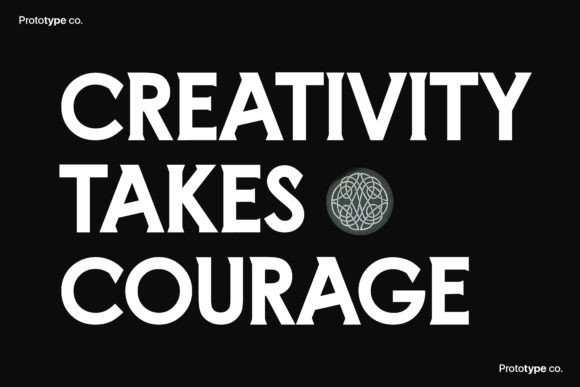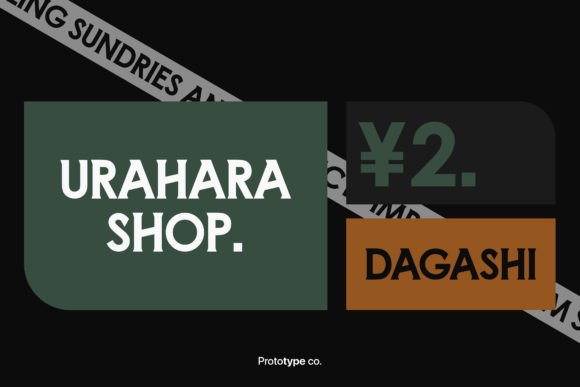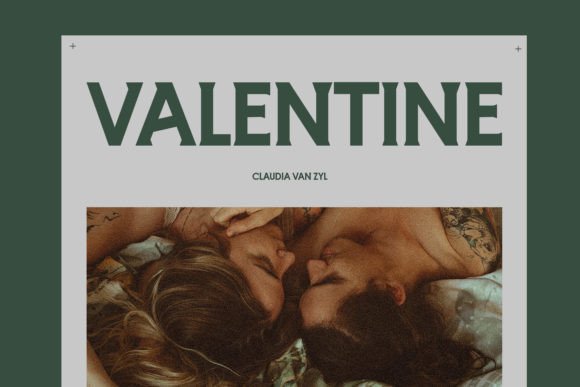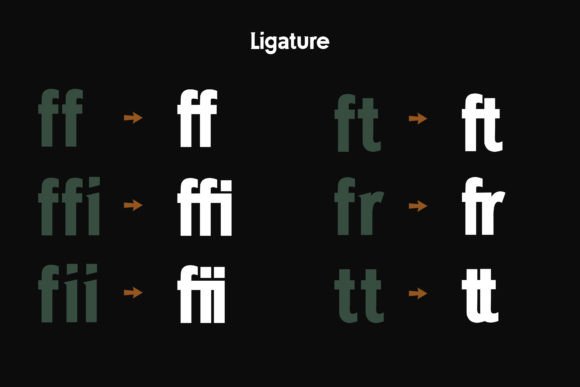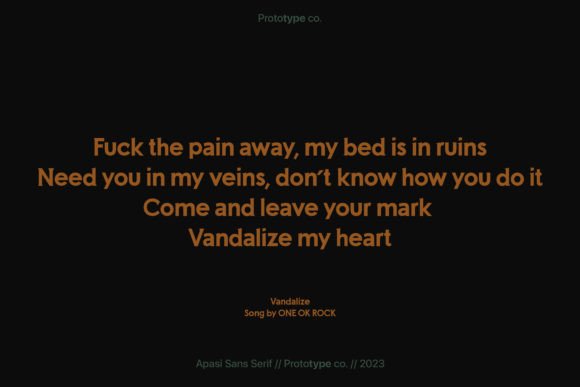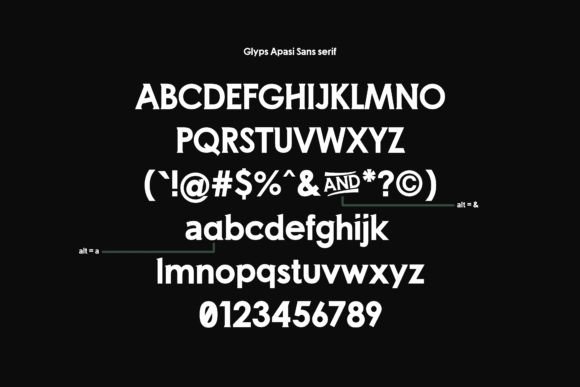
Introducing Apasi Font: Elevate Your Designs with Modern Elegance
In the world of typography, a font can make or break a design. For designers and crafters seeking to add a touch of sophistication to their projects, Apasi Font is an excellent choice. This modern and classy display typeface is designed to elevate your designs, making it perfect for headings, logos, branding, magazines, product packaging, and invitations.
The Characteristics of Apasi Font
Apasi Font boasts clean lines and smooth curves, giving any project an extra touch of class. Its sleek design makes it an ideal choice for designers who want to create a lasting impression. The font’s modern aesthetic is versatile, allowing it to be used in various design applications, from digital media to print materials.
Why Choose Apasi Font?
There are several reasons why Apasi Font stands out from the rest:
- Modern and Classy: Apasi Font exudes a sense of sophistication, making it perfect for designs that require a touch of elegance.
- Versatile: This font is suitable for a wide range of design applications, including headings, logos, branding, magazines, product packaging, and invitations.
- Clean Lines and Smooth Curves: The font’s sleek design ensures that your projects look polished and refined.
- Ease of Use: Apasi Font is easy to read and works well in various sizes, making it a practical choice for designers.
Design Applications for Apasi Font
Apasi Font is an excellent choice for various design applications, including:
- Headings and Titles: Use Apasi Font to create eye-catching headings and titles that grab attention.
- Logos and Branding: This font is perfect for creating professional logos and branding materials that exude elegance and sophistication.
- Magazines and Editorials: Apasi Font is an excellent choice for magazine and editorial designs, adding a touch of class to your publications.
- Product Packaging: Use Apasi Font to create eye-catching product packaging that stands out on store shelves.
- Invitations and Events: This font is perfect for creating elegant invitations and event materials that make a lasting impression.
Tips for Using Apasi Font Effectively
To get the most out of Apasi Font, follow these tips:
- Pair with Other Fonts: Experiment with pairing Apasi Font with other fonts to create a unique and visually appealing design.
- Use in Moderation: Use Apasi Font in moderation to avoid overwhelming your design. This font is best used for headings and titles.
| Font Name | Apasi Font |
| Author | Ryan Vierra |
Apasi Font is a versatile and elegant display typeface that can elevate your designs to the next level. Its modern aesthetic, clean lines, and smooth curves make it perfect for a wide range of design applications. Whether you’re a designer or crafter, Apasi Font is an excellent choice for adding a touch of sophistication to your projects. With its ease of use and versatility, Apasi Font is sure to become a staple in your design toolkit.